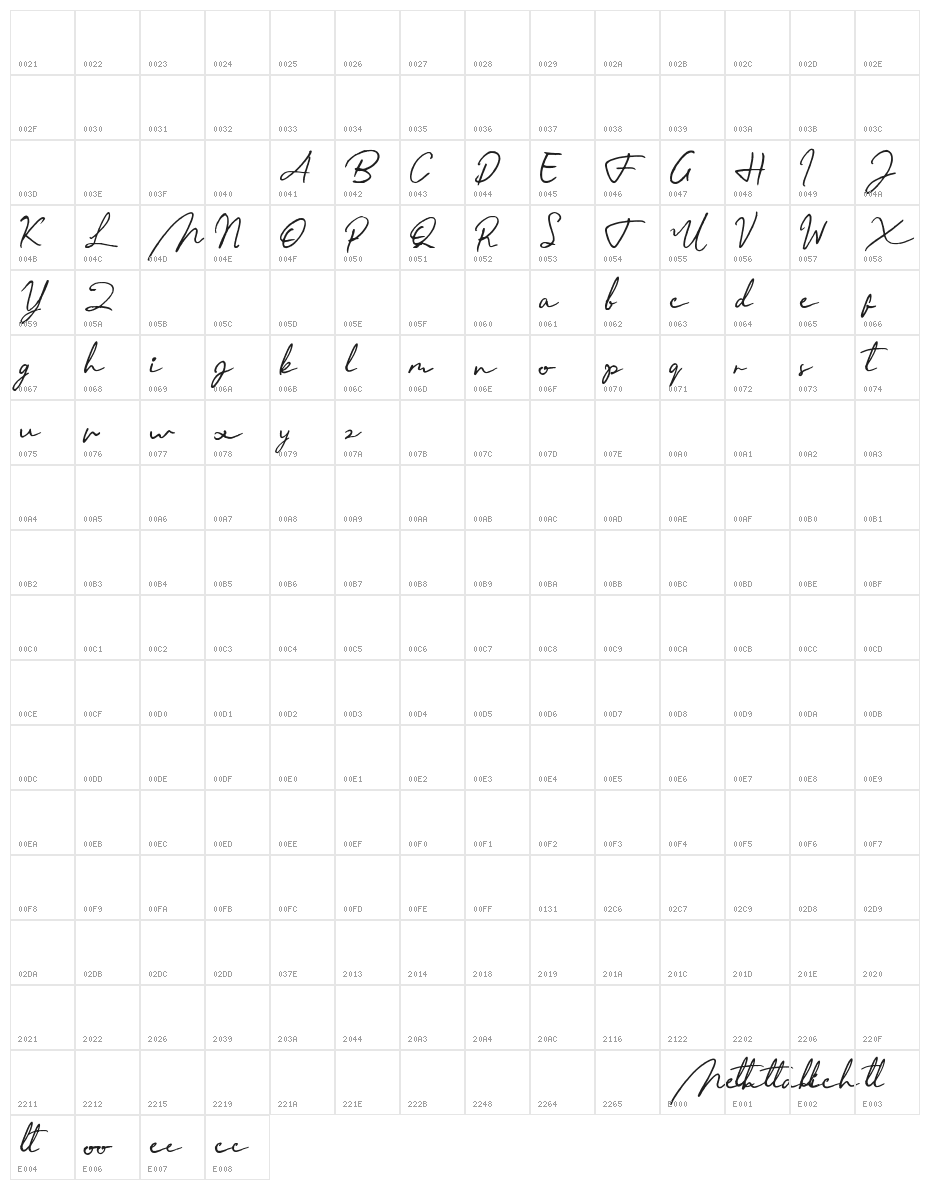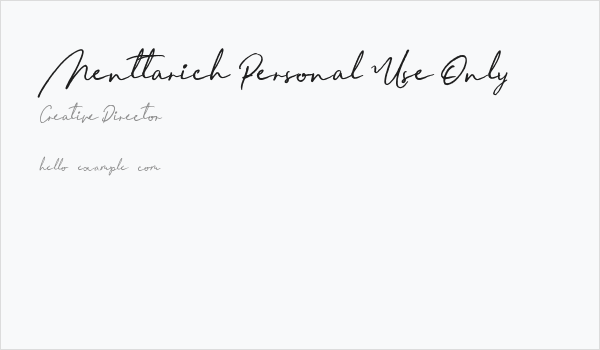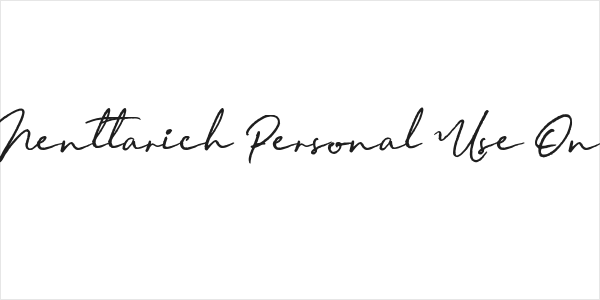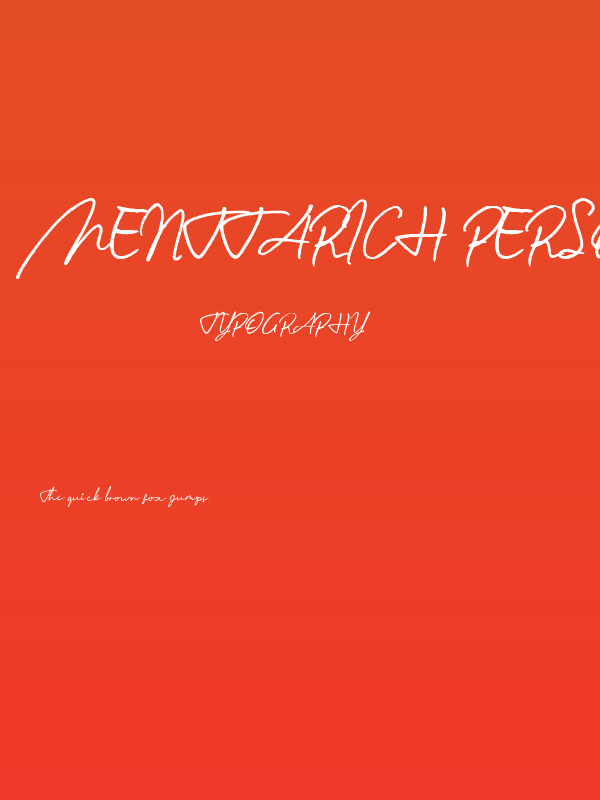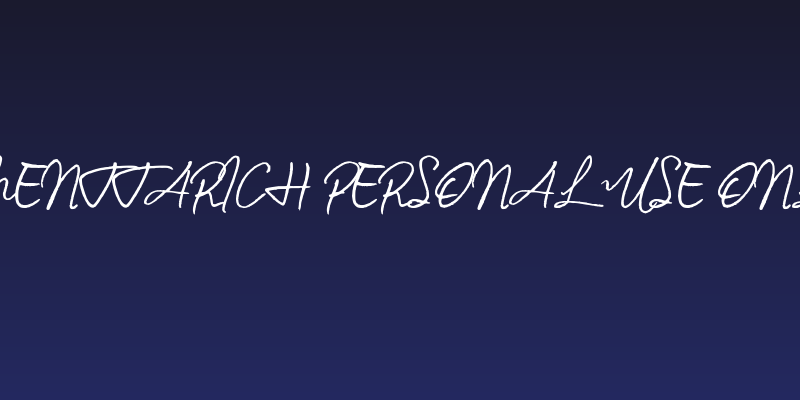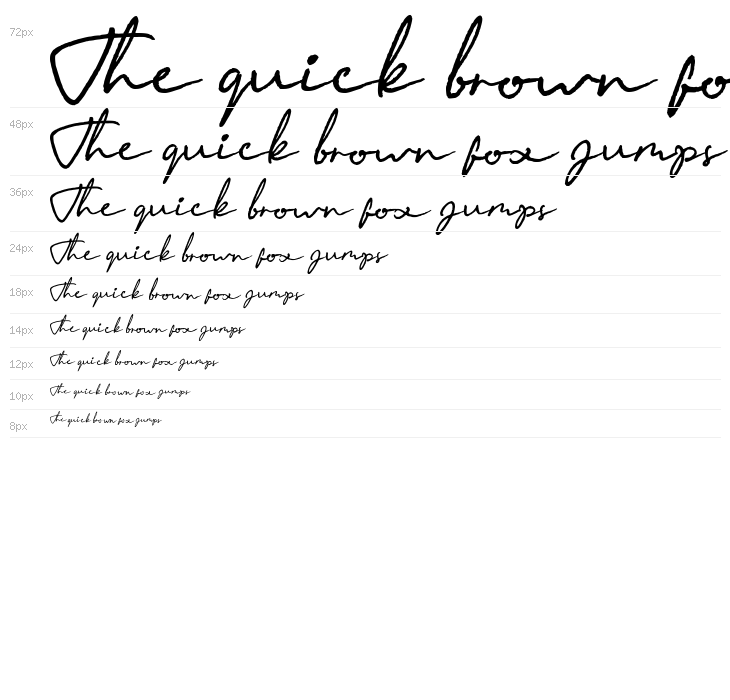
Menttarich Personal Use Only Font
Menttarich Personal Use Only Description
This font features a flowing, cursive style with a handwritten appearance. The letters are connected, creating a seamless and elegant look. The uppercase characters are slightly larger and more pronounced, while the lowercase letters maintain a consistent flow. The strokes vary in thickness, adding a dynamic and lively feel to the text. The overall design is both sophisticated and casual, making it suitable for a variety of creative projects. The font's organic curves and loops give it a personal touch, reminiscent of traditional calligraphy.
| Overall Style | Elegant and Casual |
| Use Case | Logos, Invitations, Artistic Text |
| Proposed Projects | Ideal for wedding invitations, greeting cards, personal branding, and artistic projects. |